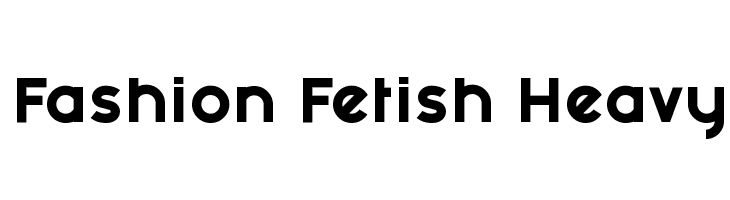
( Fonts by www.typodermicfonts.com - Ray Larabie )
A bold, robust font with strong, consistent strokes and excellent readability.
( Fonts by dot colon - Personal-use only. For commercial use please contact owner. )
A clean, modern sans-serif font with uniform stroke widths and excellent readability.
( Fonts by Octotype - www.foundmyfont.com - Personal-use only. For commercial use please contact owner. )
A whimsical and flowing script font with elegant curves and flourishes.
( Fonts by Octotype - www.foundmyfont.com - Personal-use only. For commercial use please contact owner. )
A bold, textured script font with a vintage, hand-painted style.